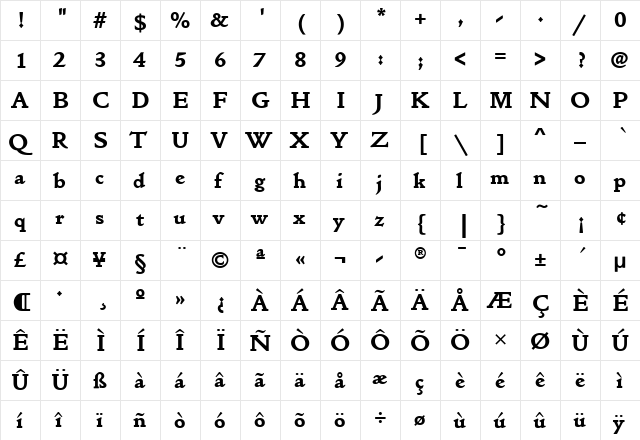
GoldenTypeBlackITC Medium
Design Context for GoldenTypeBlackITC Typeface
GoldenTypeBlackITC is a composed and adaptable typeface that performs quietly and consistently across a wide range of design contexts.